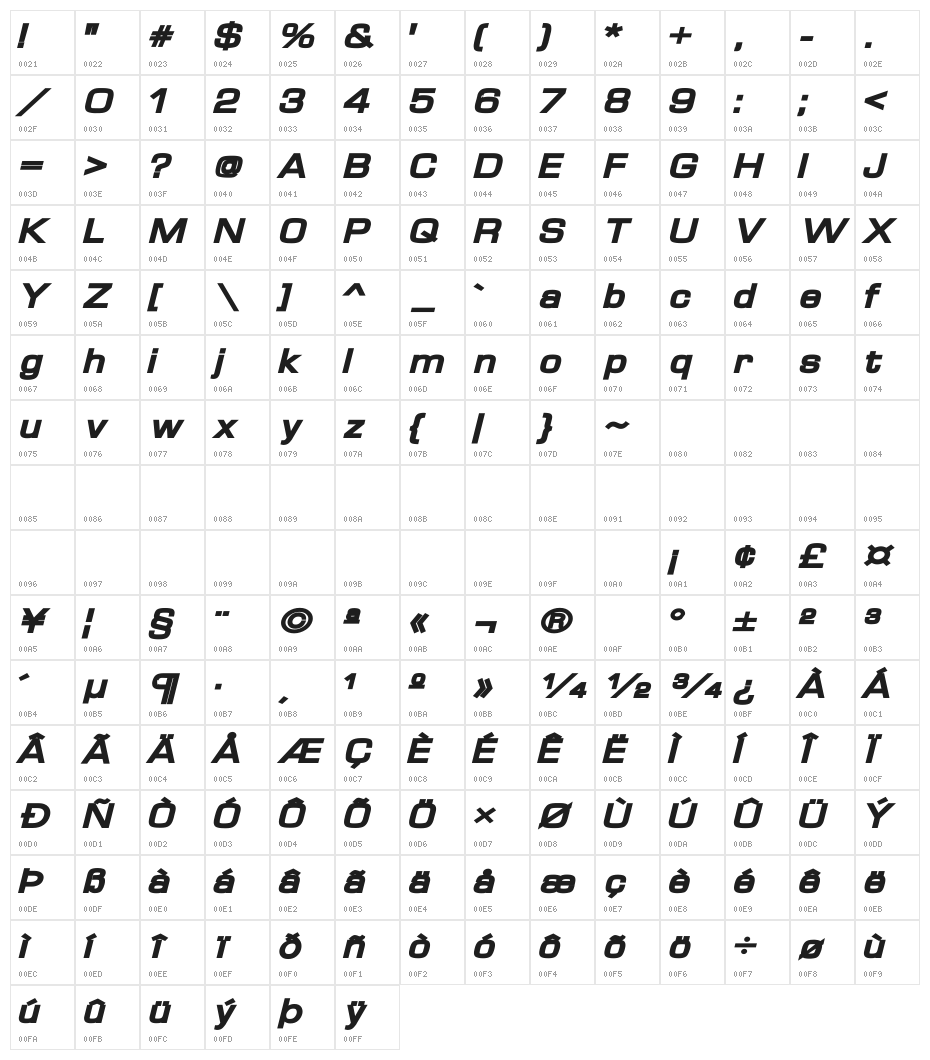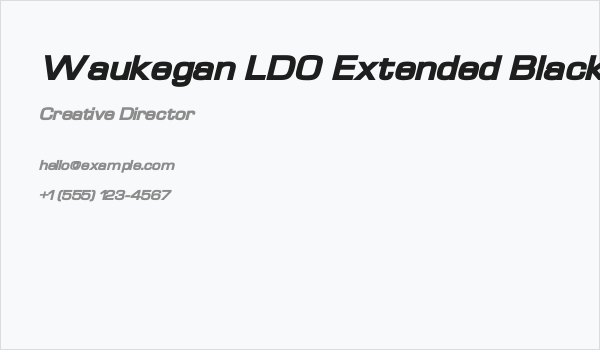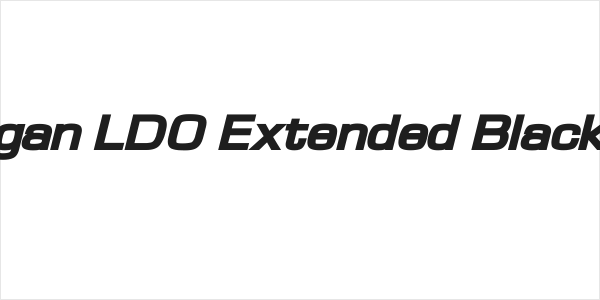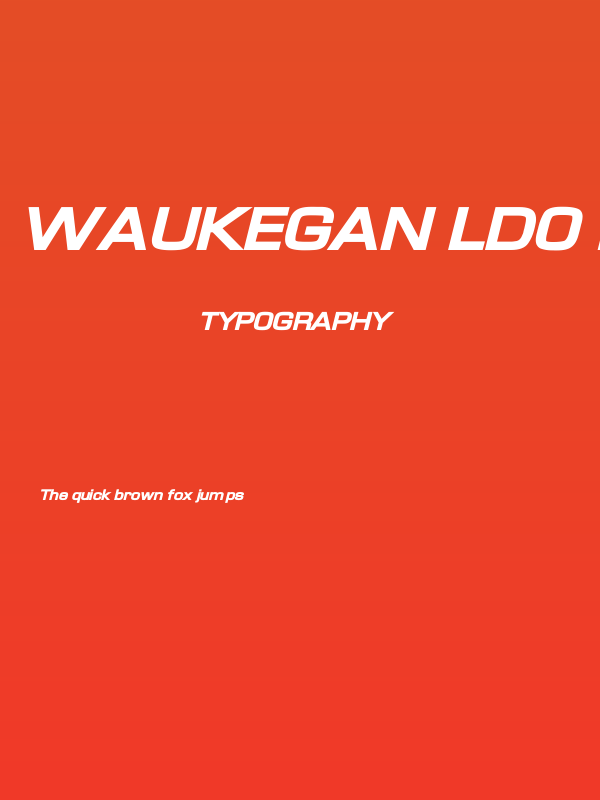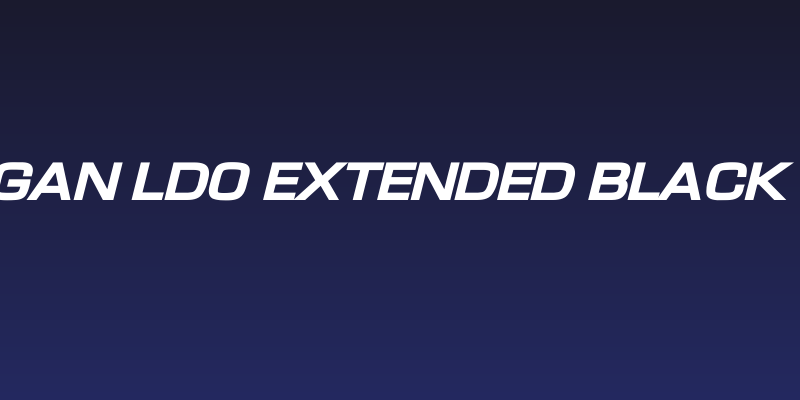
Waukegan LDO Extended Black Oblique Font
Waukegan LDO Extended Black Oblique Description
This typeface features an extended and bold design with a distinct oblique slant, giving it a dynamic and forward-moving appearance. The characters are wide and robust, with a strong presence that commands attention. The uppercase and lowercase letters maintain a consistent style, with smooth curves and sharp angles that enhance readability. The numbers and special characters are equally bold and well-defined, making them suitable for various applications. The overall design is modern and sleek, ideal for projects that require a strong visual impact.
| Proposed Projects | Ideal for branding, advertising, sports team logos, and headlines that require a bold statement. |